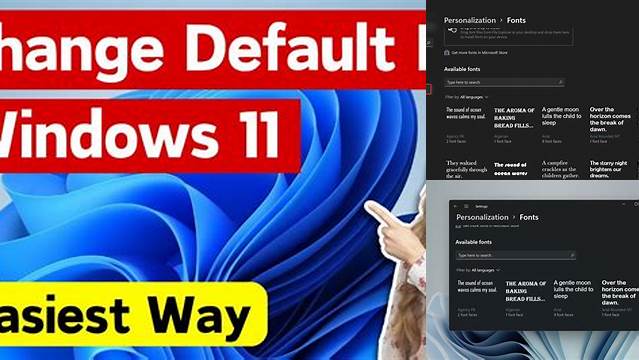
Change Default Fonts In Windows 11: A Simple Guide
Hey guys! Ever felt like your Windows 11 fonts are just not you? Maybe they're too small, too boring, or just plain hard to read. Well, the good news is you can totally change the system default fonts in Windows 11! While Microsoft doesn't offer a straightforward, one-click setting to do this, there are still ways to customize your fonts and make your system look exactly how you want it. This article will walk you through several methods, so you can pick the one that feels easiest and most comfortable for you. Let's dive in and make your Windows 11 experience a little more personal!
H2: Understanding System Default Fonts in Windows 11
Before we jump into the how-to, let's chat a bit about system default fonts in Windows 11. These are the fonts that Windows uses across the operating system – in menus, dialog boxes, file explorer, and other system interfaces. Knowing how these fonts work will help you understand why changing them isn't as simple as, say, changing the font in a Word document. The default font in Windows 11 is typically Segoe UI, a clean and modern font designed for readability. However, everyone has different preferences and visual needs, so being able to tweak these settings is a definite plus. We'll explore why customizing these fonts can enhance your overall user experience and how to do it safely and effectively. Understanding the impact of these changes ensures you can tailor your system to your liking without any unexpected issues.
H2: Why Change System Default Fonts?
So, why would you even want to change system default fonts? There are tons of reasons! Maybe you find the default font hard to read, especially if you spend long hours in front of your computer. A different font can make a huge difference in eye strain and overall comfort. Or perhaps you just want to inject some personality into your system. A fresh font can give your desktop a whole new vibe and make it feel more like your own. For some, it’s about accessibility – choosing a font that’s easier to read for those with visual impairments. Whatever your reason, customizing your fonts is a great way to make your computer experience more enjoyable and efficient. Let's explore how different fonts can impact readability and visual appeal, ensuring you make the best choice for your needs.
H2: Method 1: Using the Registry Editor to Change Fonts
Alright, let's get technical! One way to change system default fonts is by using the Registry Editor. Now, I know this sounds a little intimidating, but don't worry, we'll walk through it step by step. The Registry Editor is a powerful tool that allows you to modify system settings, including font settings. This method gives you a lot of control, but it's also crucial to be careful because incorrect changes can cause system instability. We'll make sure to back up your registry first, just in case. This process involves navigating to specific keys within the registry and modifying their values to point to your preferred fonts. By the end of this section, you'll feel confident in using the Registry Editor to customize your fonts like a pro.
H3: Step-by-Step Guide to Accessing the Registry Editor
First things first, we need to open the Registry Editor. Press the Windows key, type “regedit,” and hit Enter. You'll probably see a User Account Control prompt asking if you want to allow the app to make changes – click “Yes.” Now you're in the Registry Editor! It looks a bit like File Explorer, with folders on the left and values on the right. Before making any changes, it's super important to back up your registry. This way, if anything goes wrong, you can easily restore it. To back up, click “File” in the menu bar, then “Export.” Choose a location to save the backup file, give it a name, and click “Save.” Easy peasy! This backup ensures you have a safety net in case you encounter any issues while modifying the registry keys.
H3: Navigating to the Fonts Key in the Registry
Okay, now that we're in the Registry Editor and have backed up our registry, let’s navigate to the Fonts key. On the left side, you'll see a bunch of folders. We need to drill down to the right location. Follow this path: HKEY_LOCAL_MACHINE > SOFTWARE > Microsoft > Windows NT > CurrentVersion > Fonts. Click on each folder to expand it until you reach the “Fonts” folder. This folder contains information about the fonts installed on your system and their corresponding settings. Navigating this path carefully is essential to ensure you're modifying the correct settings and avoiding any unintended changes to other system configurations.
H3: Modifying Font Values in the Registry
Here comes the fun part! In the “Fonts” folder, you'll see a list of font names and their corresponding values. To change system default fonts, we need to modify specific values. The values we're interested in are usually named after the UI elements they affect, like